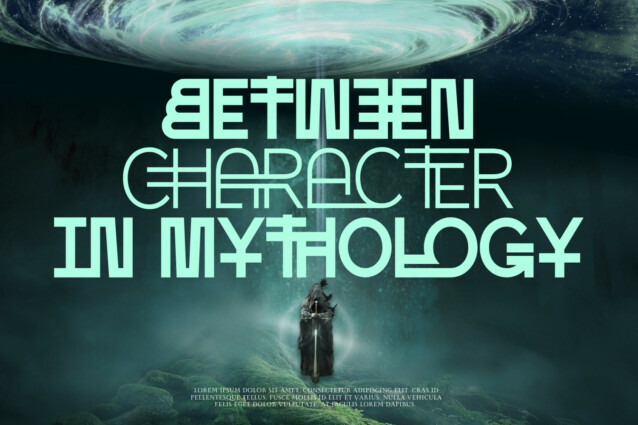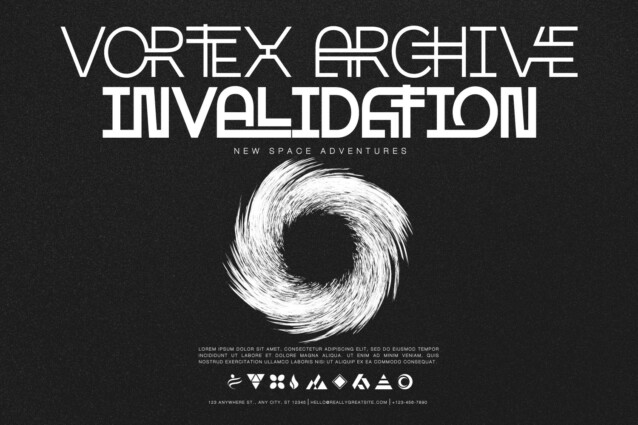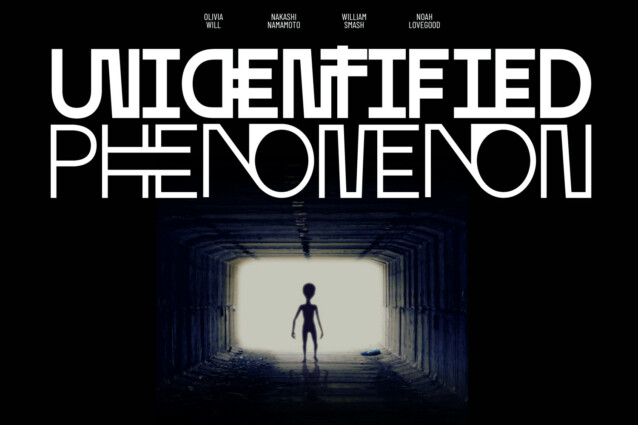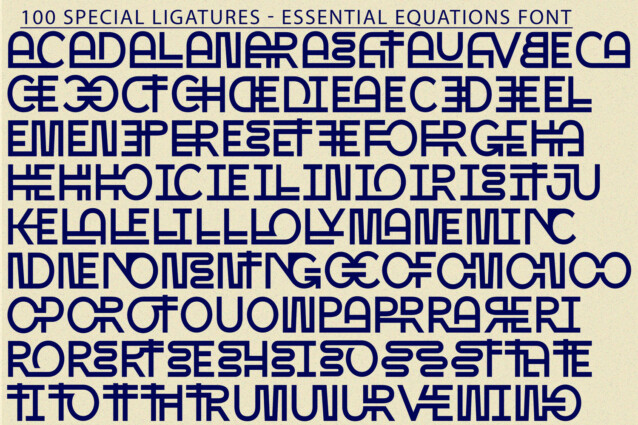
Essential Equations Font
Essential Equations Font is a modern futuristic font with unique uppercase, come with all-caps that will make your design looks futuristic and modern. You can use it for a variety of design projects like posters, business cards, wedding invitations, games, covers, social media posts, quote photos, branding, editorials, and much more.
Essential Equations was built with OpenType features and includes 100 ligatures, alternate, numbers, punctuation, and it also supports other languages.
AC AD AL AN AR AS AT AU AV BE CA CE CH CO CT DE DI EA EC ED EE EL EM EN EP ER ES ET FE FO FR GE HA HE HI HO IE IC IL IN IO IR IS IT JU KE LA LE LI LL LO LY MA ME MI NC ND NE NG NO NT NS OC OF OM ON OO OP OR OT OU OW PA PR RA RD RE RI RO RS RT SE SH SI SO SS ST TA TE TH TI TO TR TT UM UN UR VE WI WO